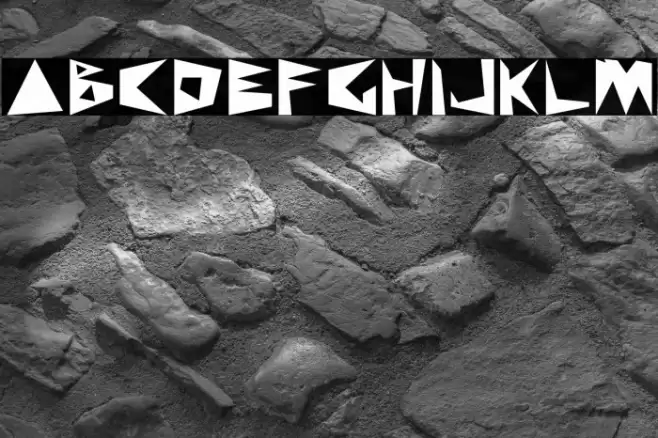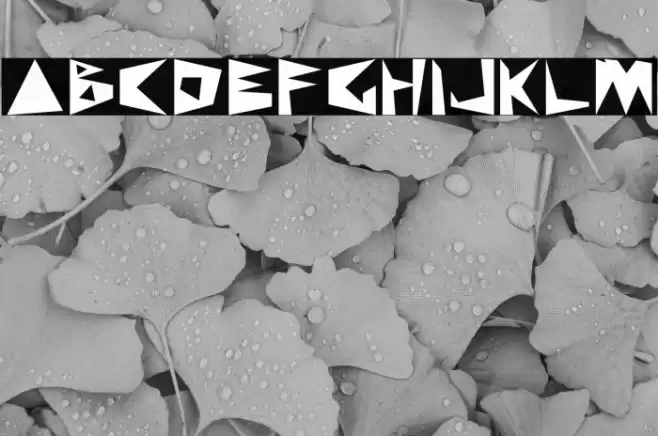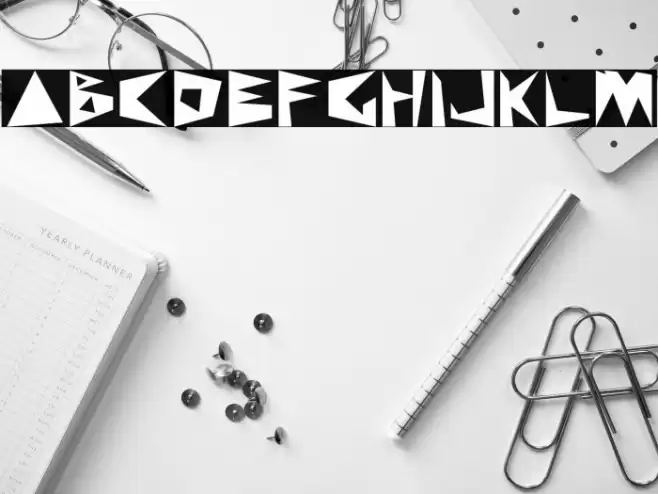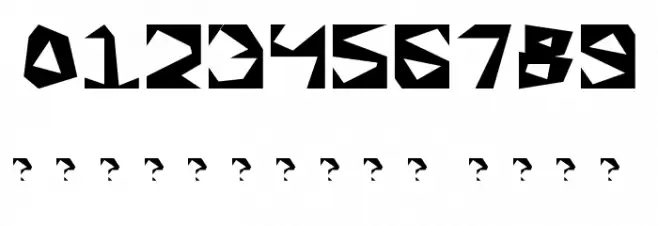
WKWKWK LAND Font
WKWKWK LAND Description
This font features a bold and angular design, characterized by sharp, jagged edges and a geometric aesthetic. Each character is uniquely crafted with a sense of movement and energy, making it stand out with its dynamic and edgy appearance. The uppercase and lowercase letters maintain a consistent style, while the numbers and special characters complement the overall design. This font's striking and unconventional look makes it ideal for projects that require a strong visual impact.
A bold, angular font with a dynamic and edgy geometric design from Uncategorized fonts.
- Proposed Projects: Ideal for music album covers, edgy branding, streetwear fashion designs, and event posters.